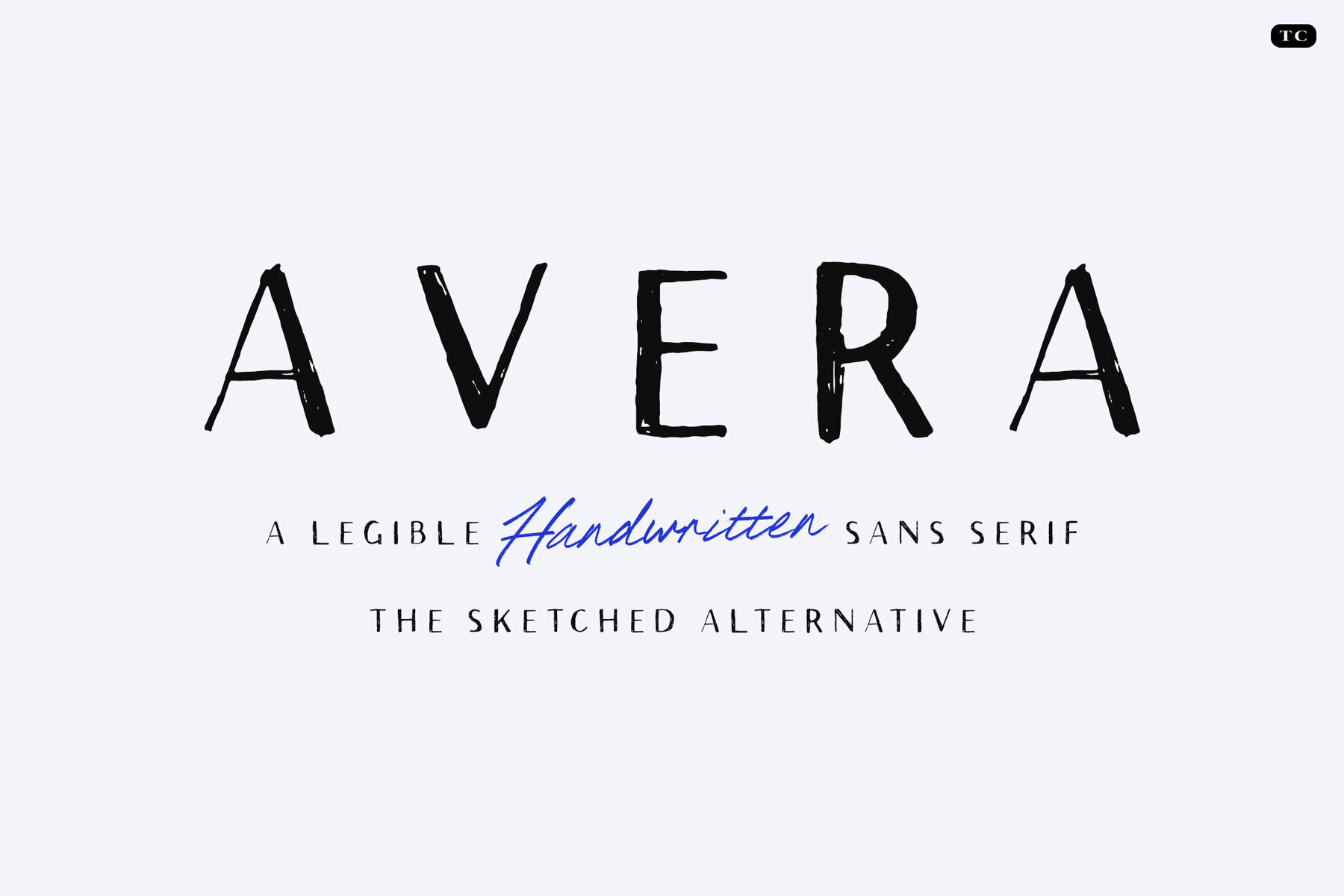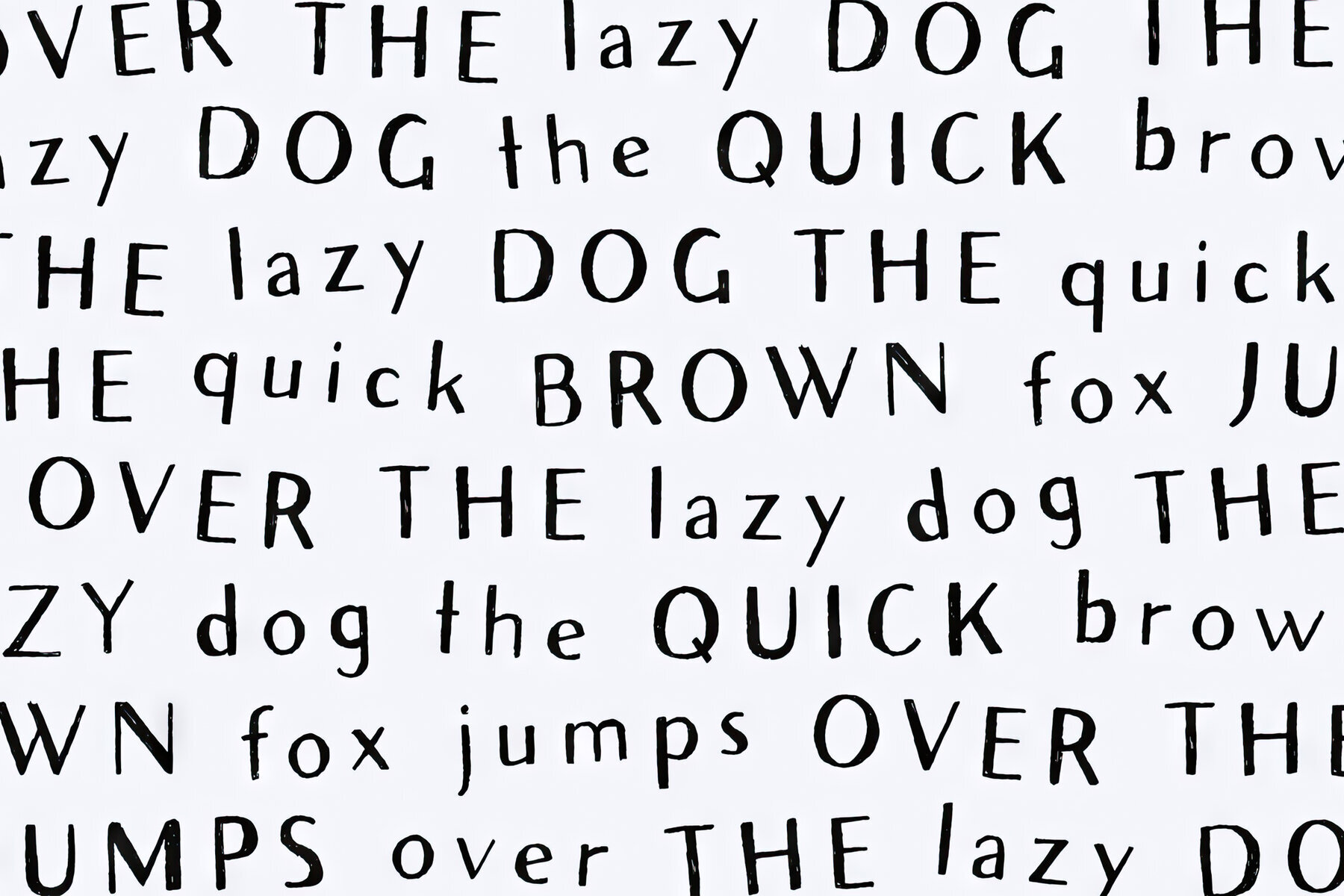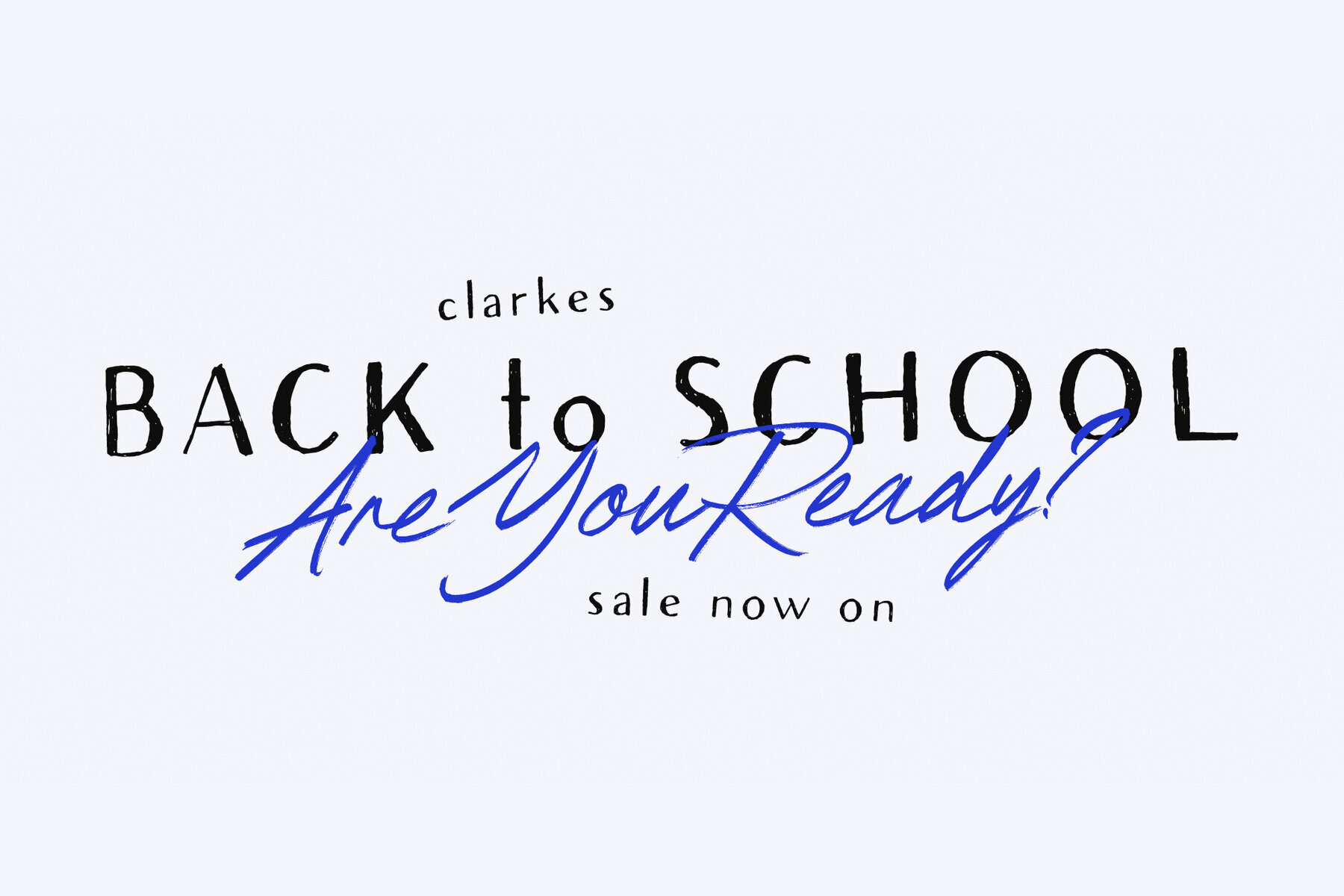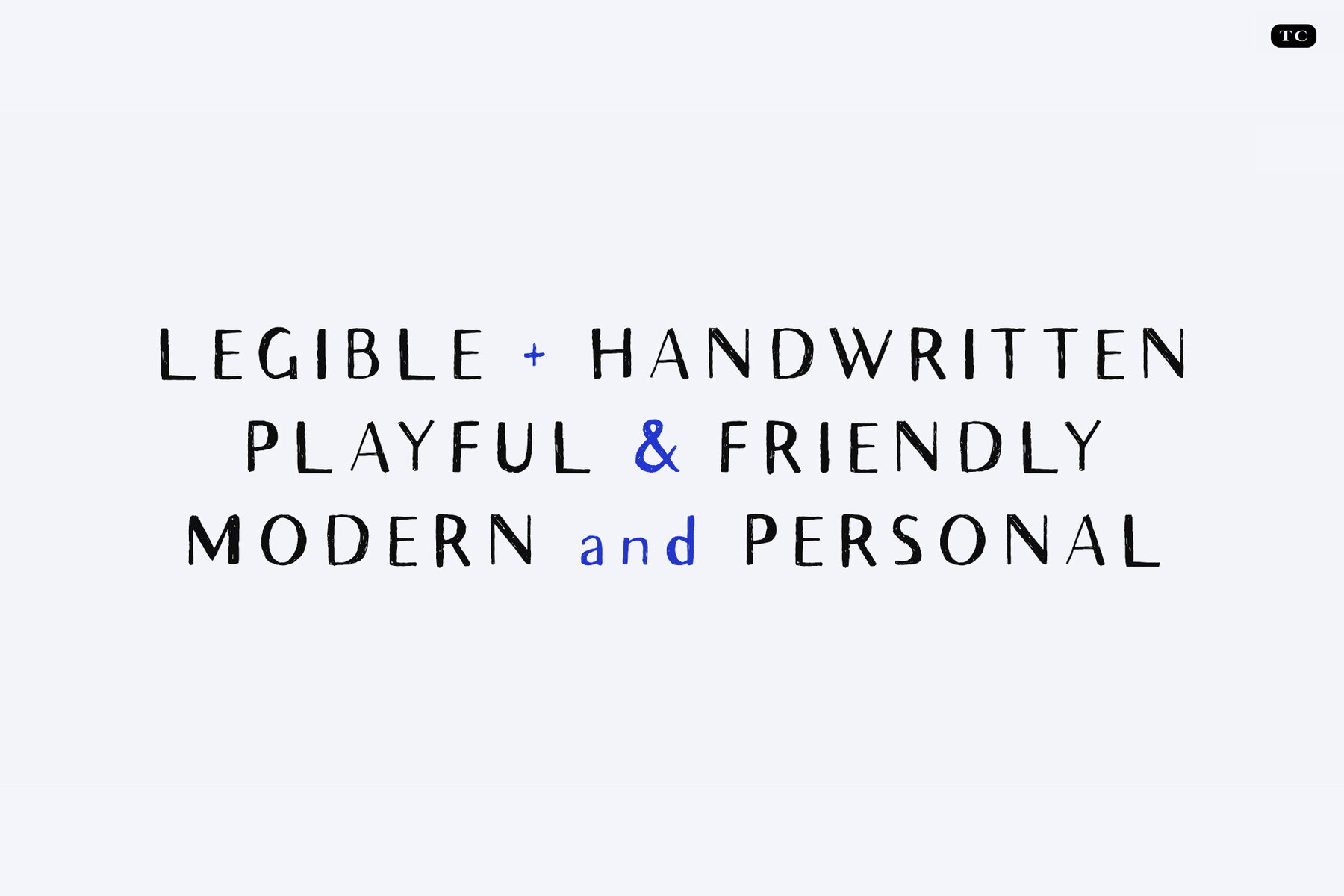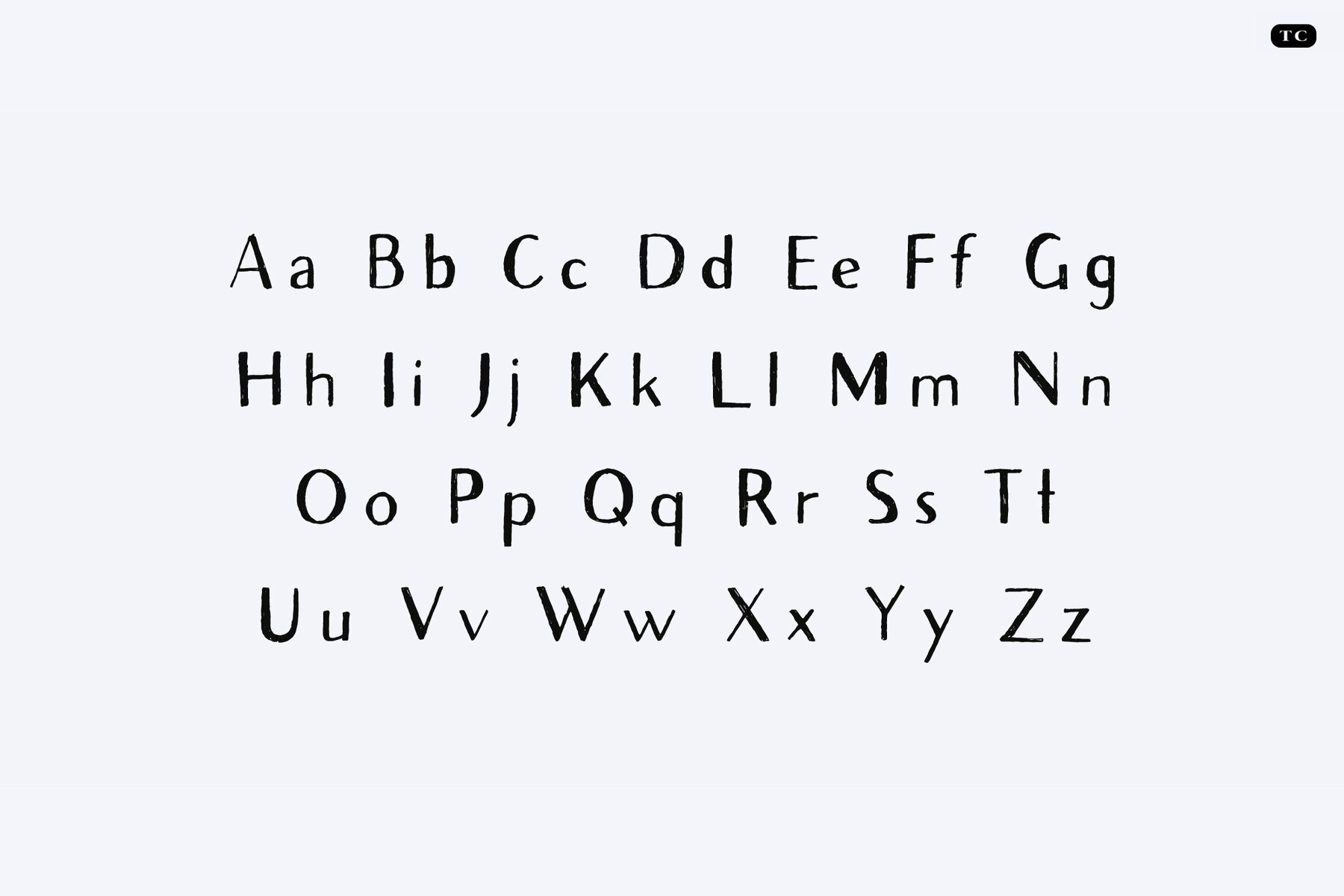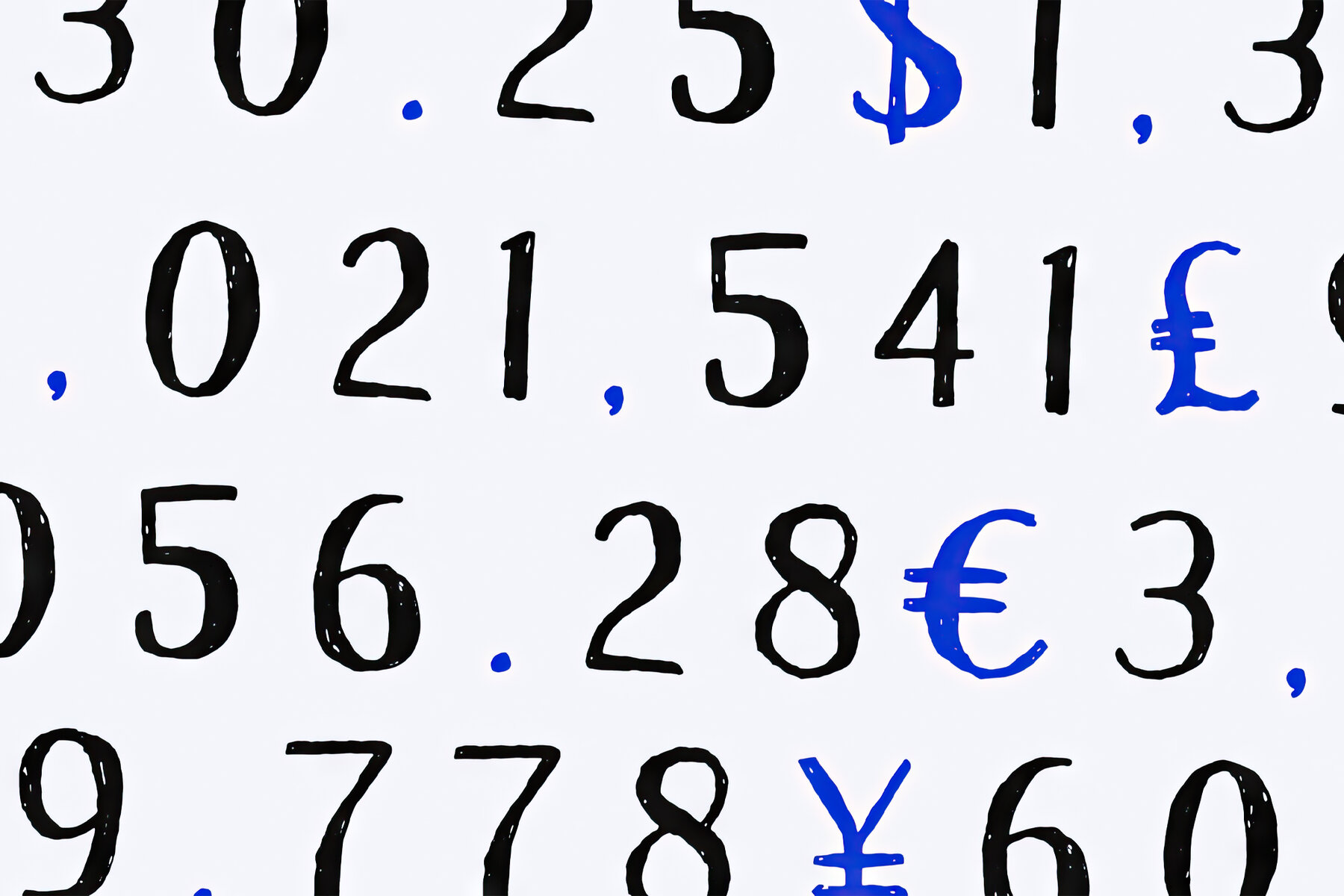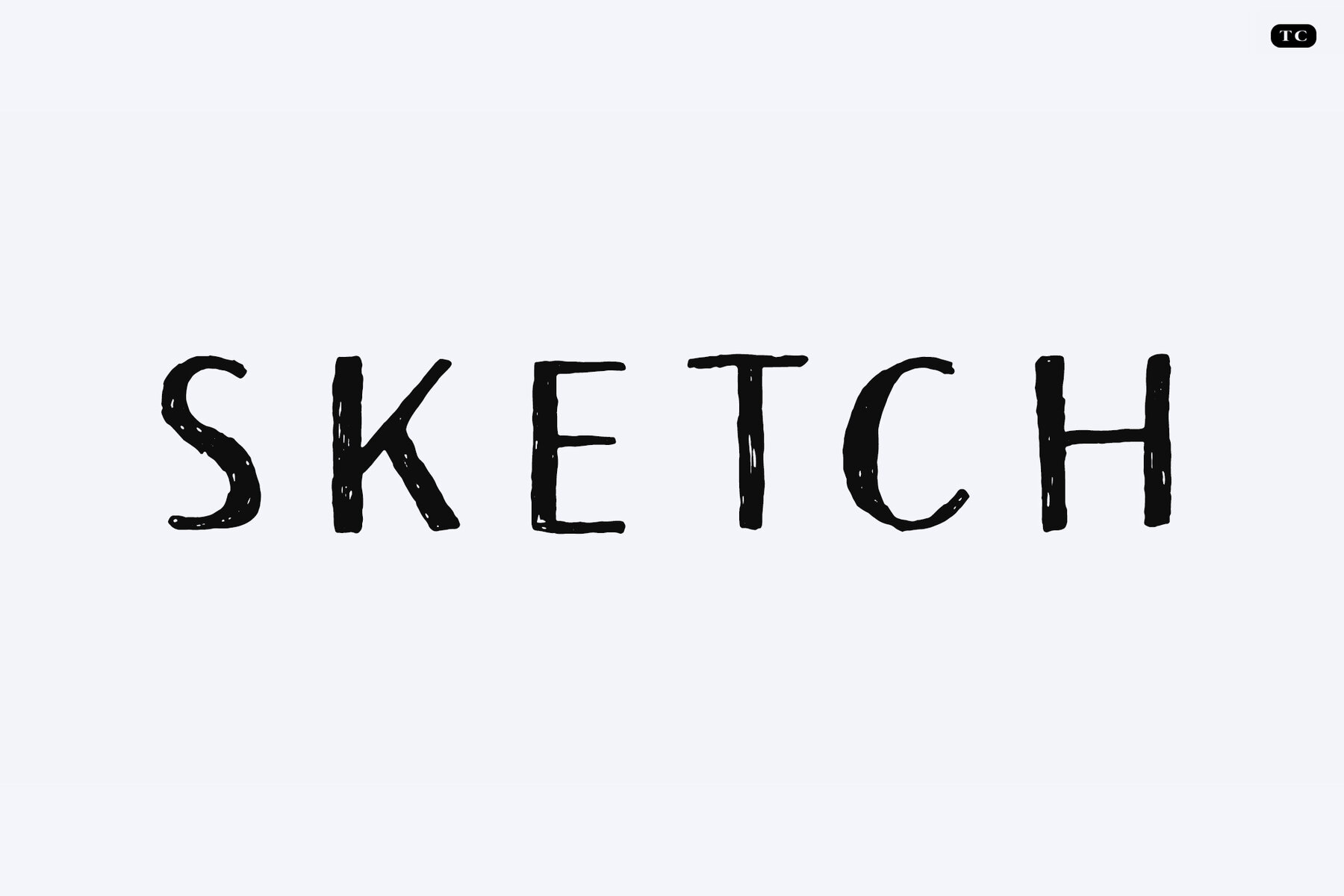
TC Avera Sans Sketch Font
TC Avera Sans Sketch Regular
Introducing TC Avera Sans Sketch: This typeface retains the legibility of our original Avera Sans family while introducing the informal, lively vibe of sketched lettering. With its unmistakable hand-drawn feel, it’s perfect for injecting a dash of casual flair and approachability into your designs. This single-weight font effortlessly blends into projects that desire a touch of the human hand. Whether it's for educational materials, playful branding, or innovative advertising, the sketch style speaks of creativity and dynamism.